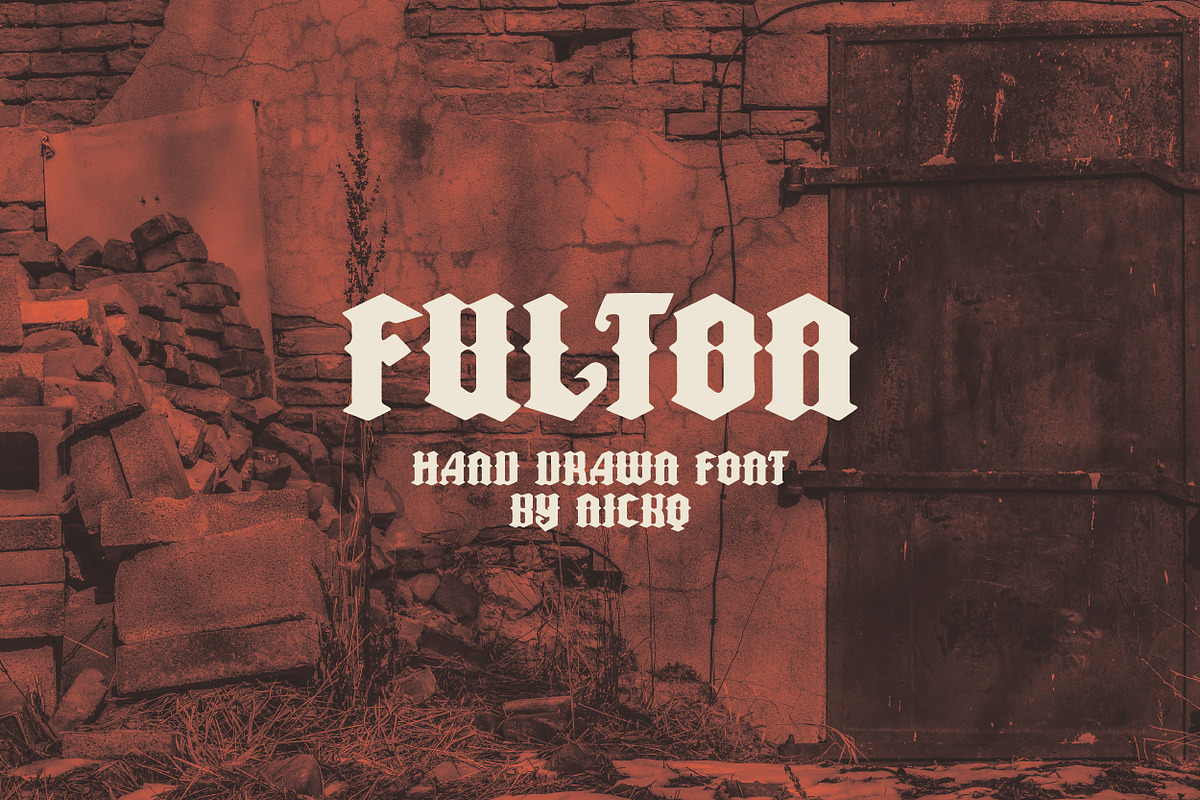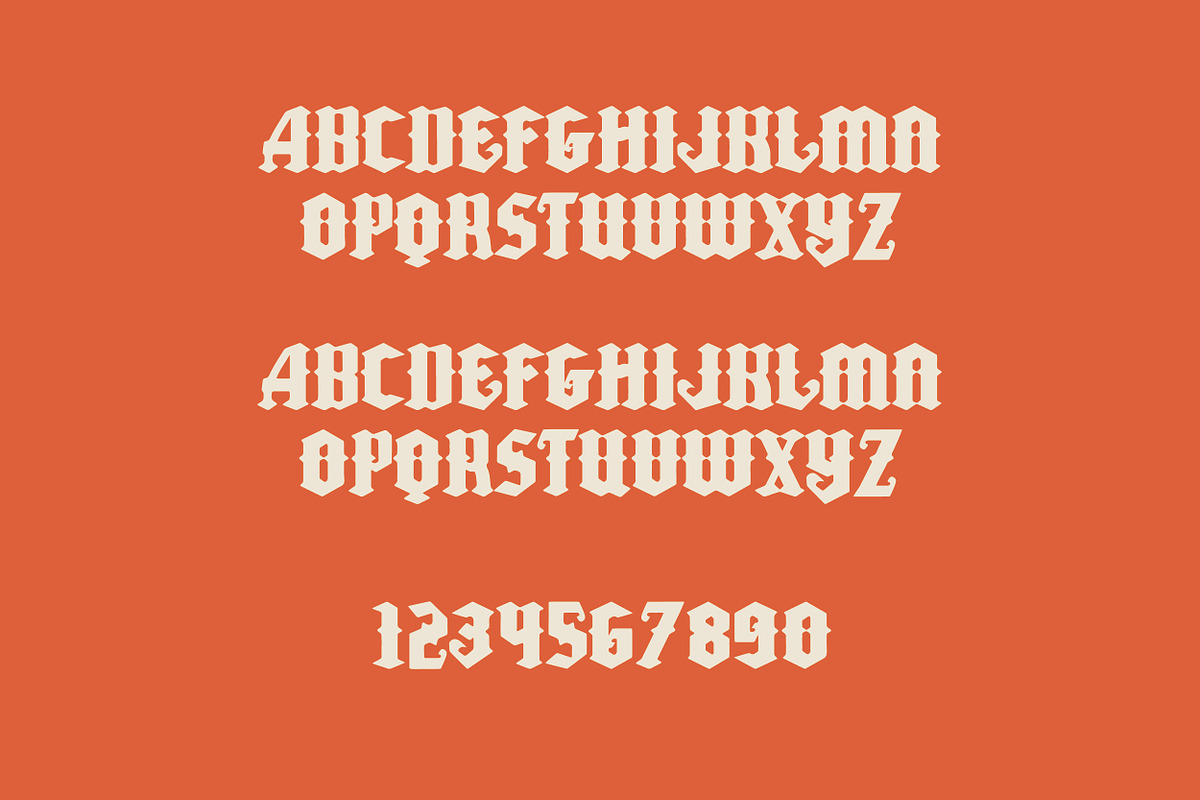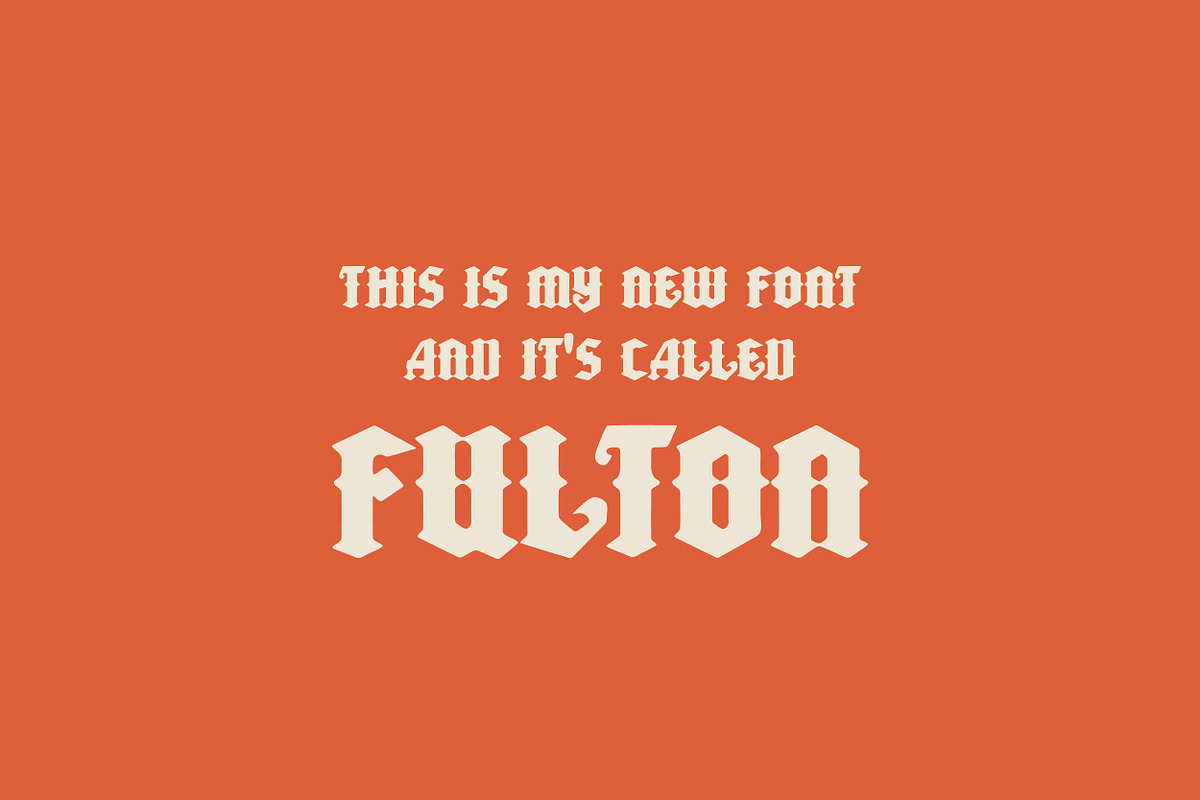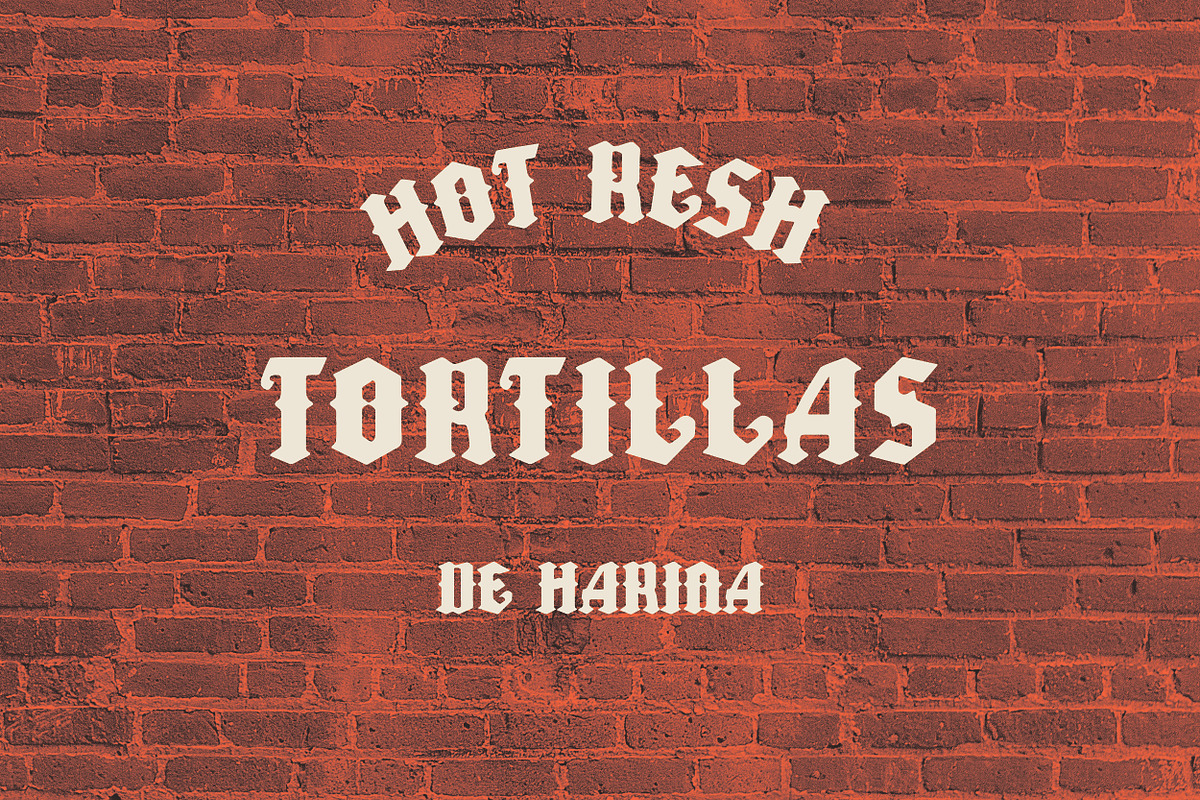
Fulton Hand Drawn Font
This is my newest font, inspired by hand-painted signage found on old storefronts and walls across Mexico. Fulton has that slightly gothic edge that comes naturally from the brush strokes, but it still feels handmade and approachable. It’s perfect for logos, t-shirts, and vintage-inspired designs that need a little grit. Includes uppercase letters and numbers only.